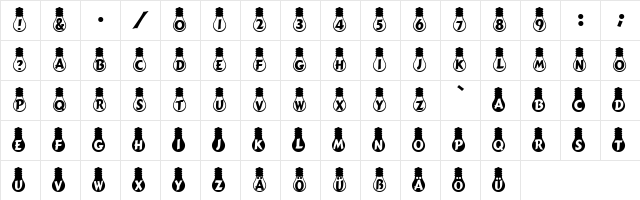
Armleuchter Heavy
| Style | Heavy |
Design Context for Armleuchter Typeface
Armleuchter is a composed and adaptable typeface that performs quietly and consistently across a wide range of design contexts.